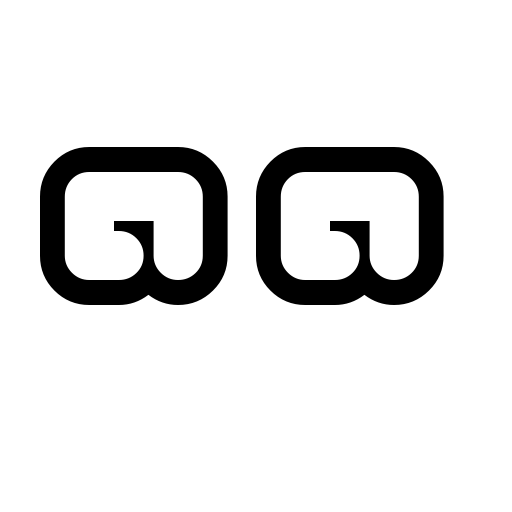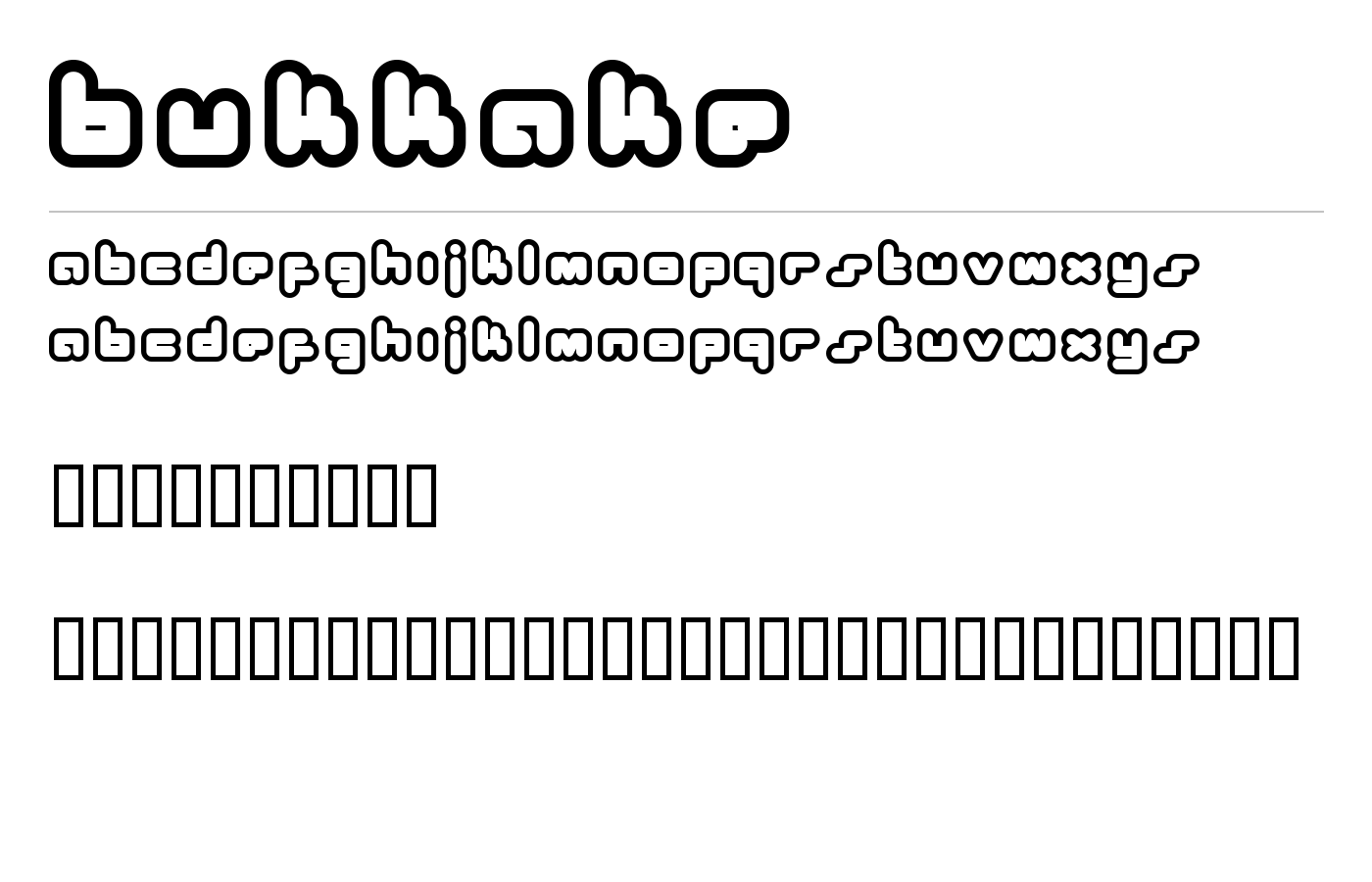
Bukkake Font is a bold, rounded sans serif typeface with a playful, bubble-like appearance that feels modern and fun. Its thick strokes and soft curves create an inviting, friendly vibe, making it great for casual branding, children’s products, or any design needing a lively and approachable touch. This font works best for headlines, logos, and display uses where a unique, eye-catching style is desired.
Bukkake Font
About Bukkake Font